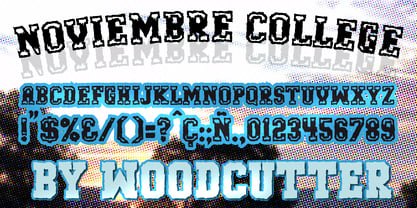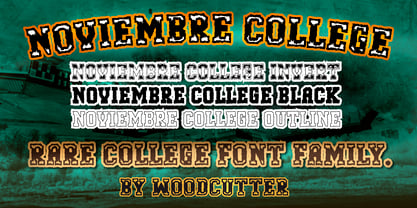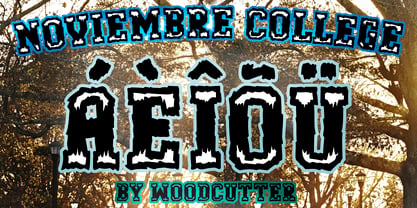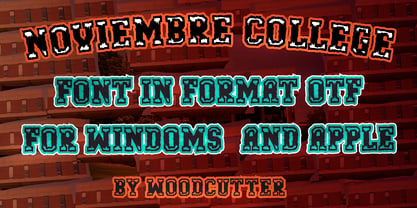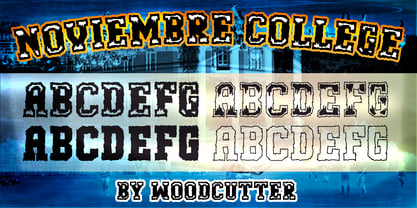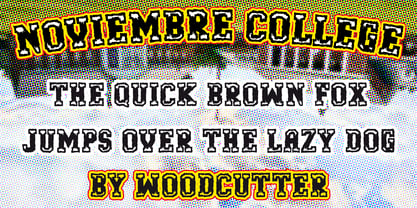
Noviembre College
by Woodcutter
The Noviembre College Font Family was designed by Jordi Manero and published by Woodcutter. Noviembre College contains 4 styles and family package options. More about this family
Noviembre College is a typeface family that reinterprets the classic collegiate lettering style from a much more imperfect, energetic, and expressive perspective. Designed in uppercase with full accent support, this typeface preserves the essence of college typography while replacing traditional geometric precision with tense, irregular, and slightly distorted contours. There are hardly any perfectly straight lines: each character feels as if it were drawn under pressure, creating movement, spontaneity, and a highly distinctive personality.
The family consists of four complementary styles. Noviembre College features decorated characters with shadows positioned above and below each letter, creating depth and a graphic effect inspired by vintage sports and university lettering. Noviembre College Invert keeps the same structure but visually reverses the colors of the shadows and outlines compared with the original version, producing a more experimental and striking appearance.
Noviembre College Black removes all decorative elements and presents completely solid, bold black characters. Finally, Noviembre College Outline transforms the letters into outline-only structures, leaving their interiors empty and providing a lighter and more versatile alternative.
The result is a college type family with a strong identity, perfect for T-shirts, branding, posters, music covers, sports design, packaging, and graphic projects seeking to combine collegiate tradition with a handcrafted, imperfect, and rebellious aesthetic.
Designers: Jordi Manero
Foundry: Woodcutter